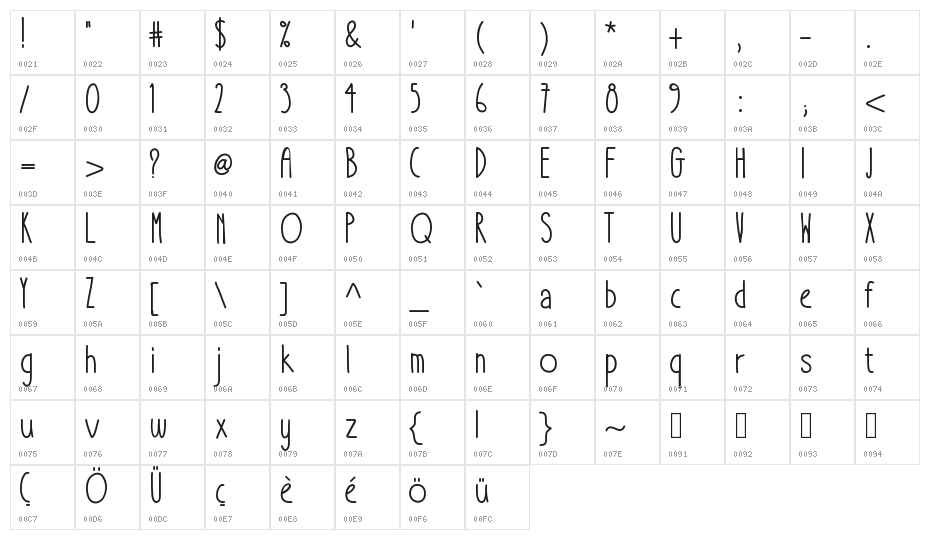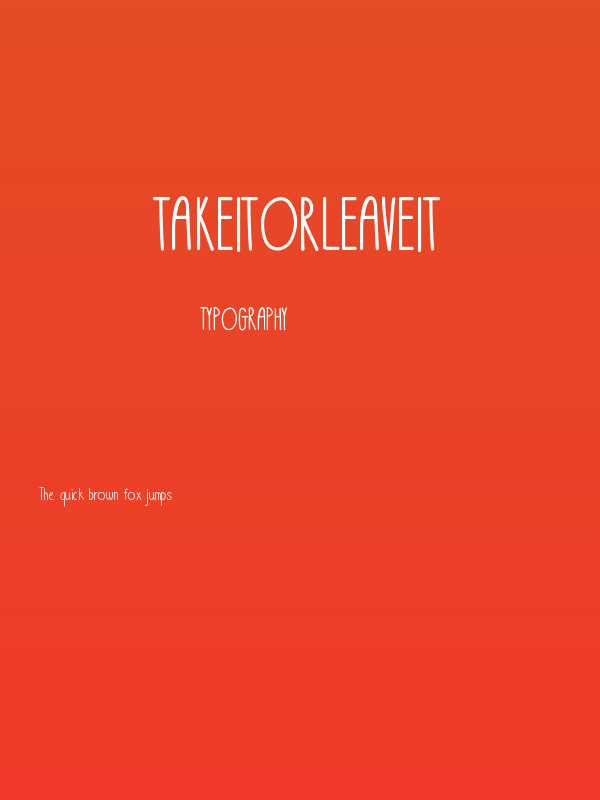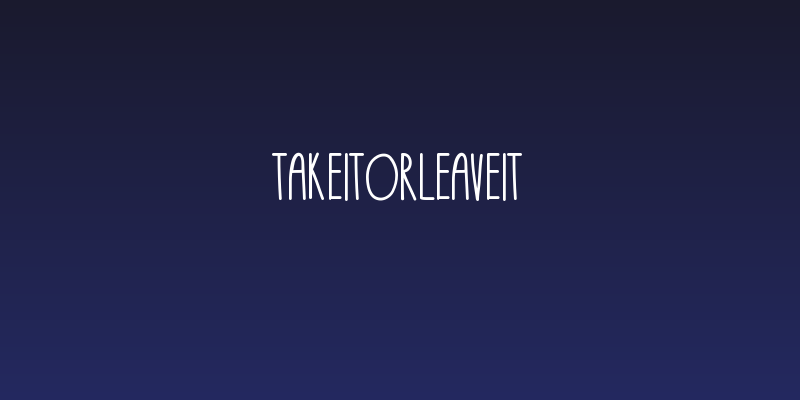
TakeItOrLeaveIt Font
TakeItOrLeaveIt Description
This font features a playful and whimsical design, characterized by its tall, narrow letters with rounded edges. The uppercase letters are uniform in height, while the lowercase letters maintain a consistent baseline, adding to the font's legibility. The numbers are similarly styled, with a quirky flair that matches the overall aesthetic. Special characters are included, maintaining the same playful style. The font's unique charm makes it suitable for creative projects that require a touch of personality.
| Proposed Projects | Ideal for children's books, creative posters, greeting cards, and playful branding. |